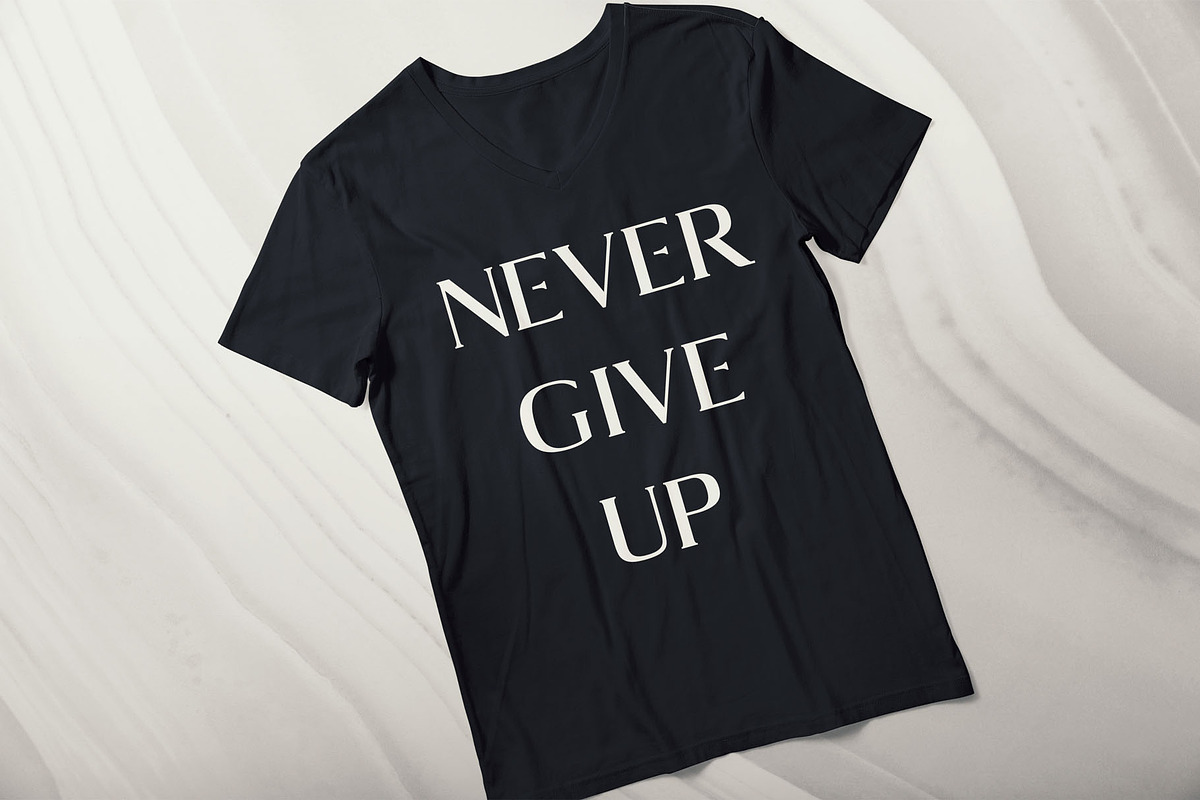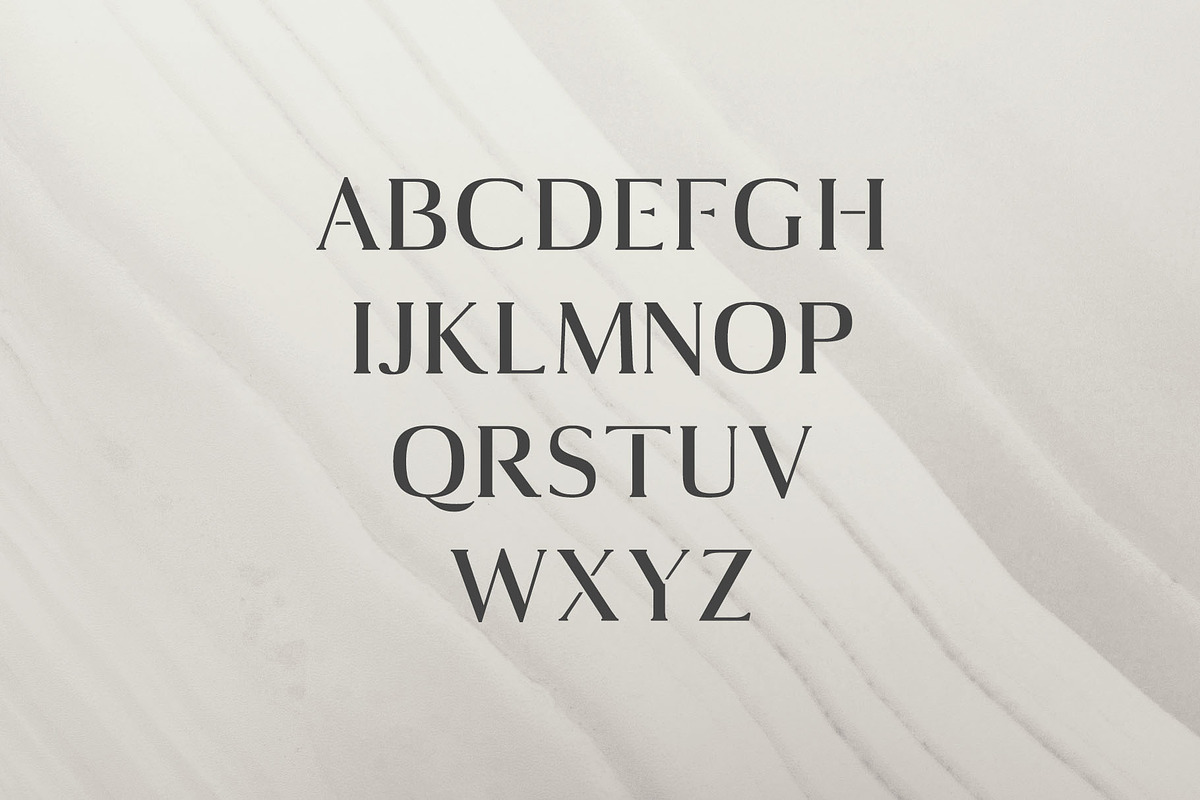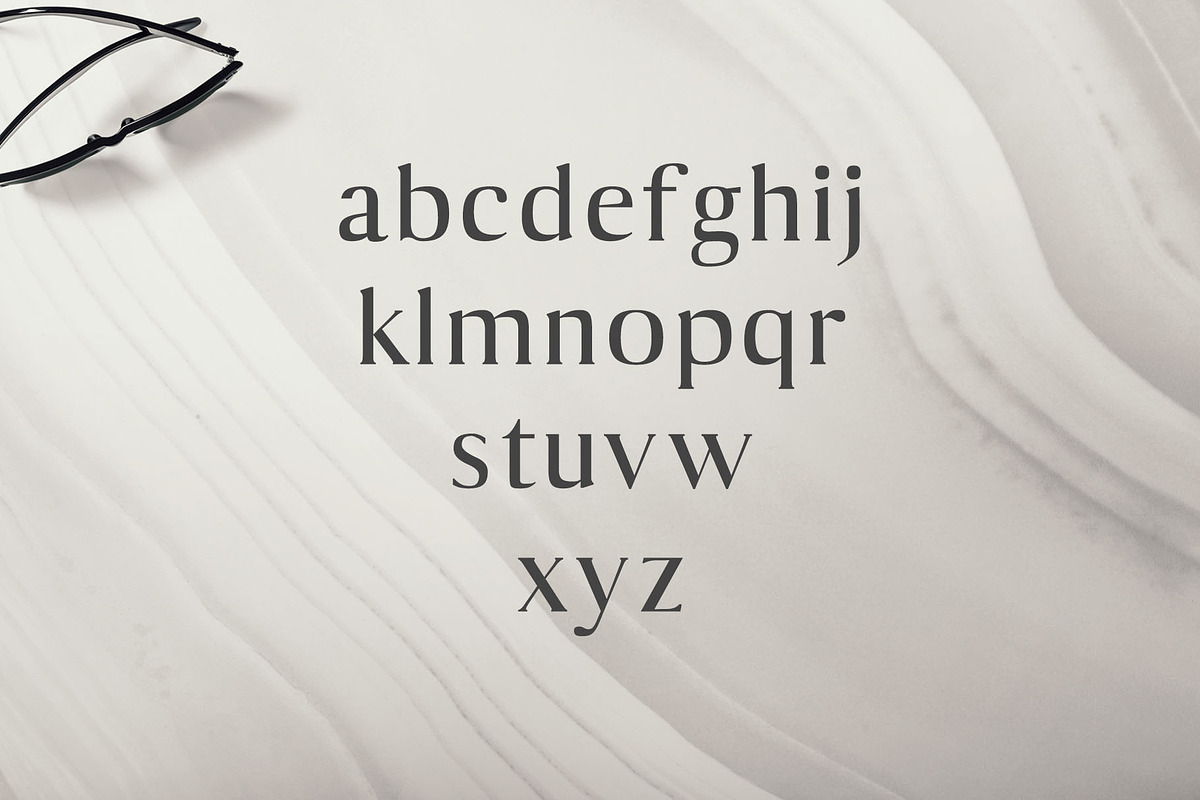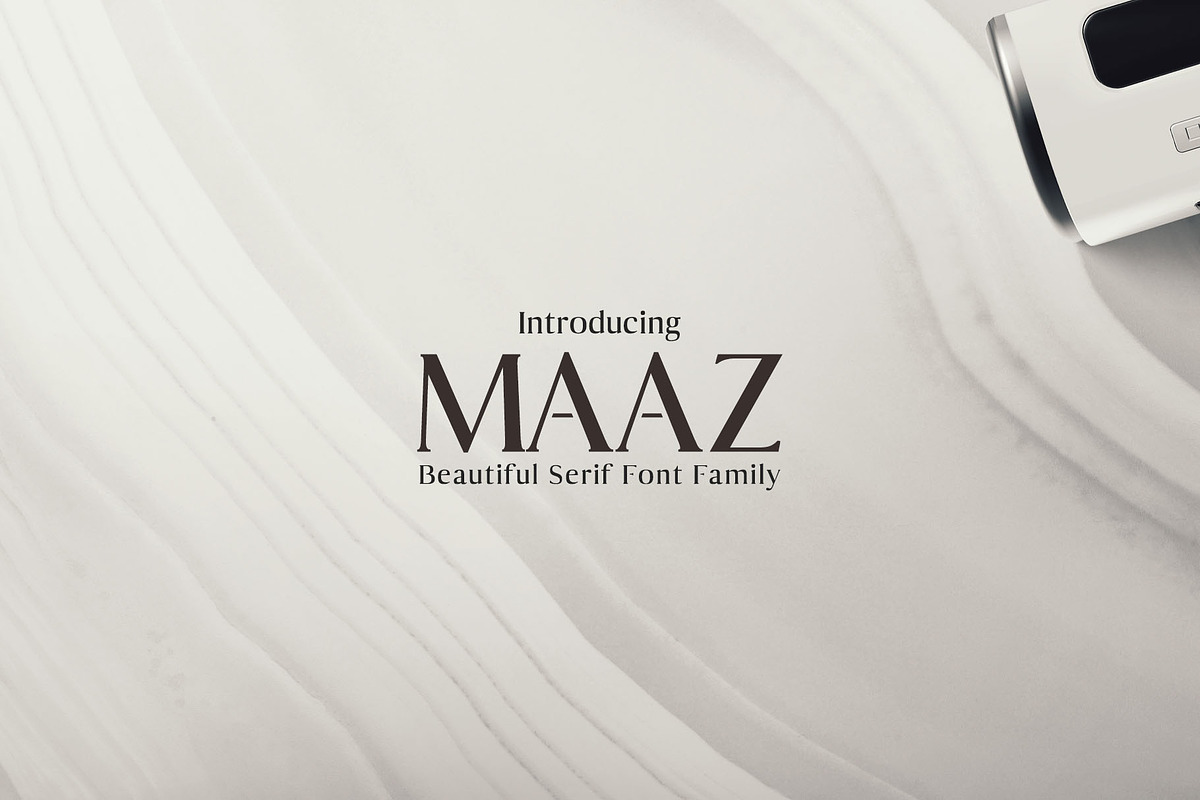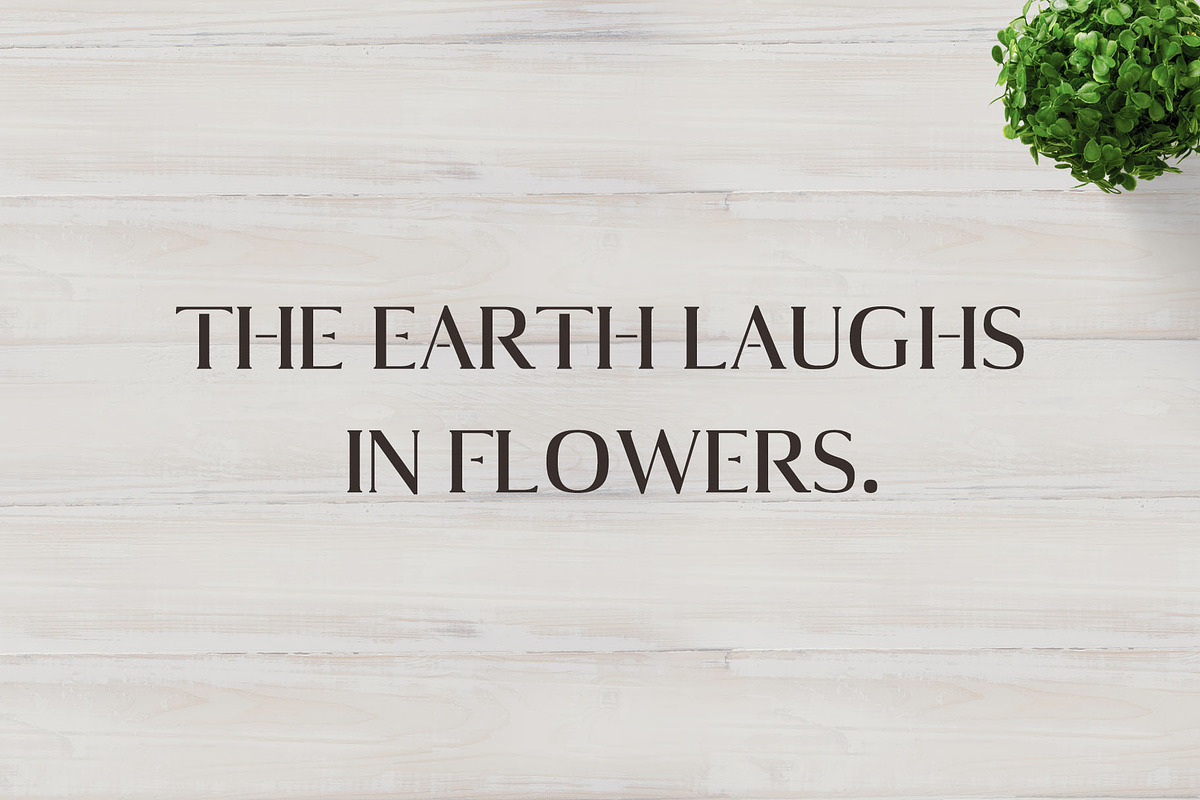
Maaz Serif Fonts Family Pack
Maaz Serif Fonts Family Pack by Creativetacos is a font selected for branding, posters, packaging, typography.
Why Maaz Serif Fonts Family Pack is worth a look
Maaz Serif Fonts Family Pack by Creativetacos fits naturally into Branding, posters, packaging, typography.